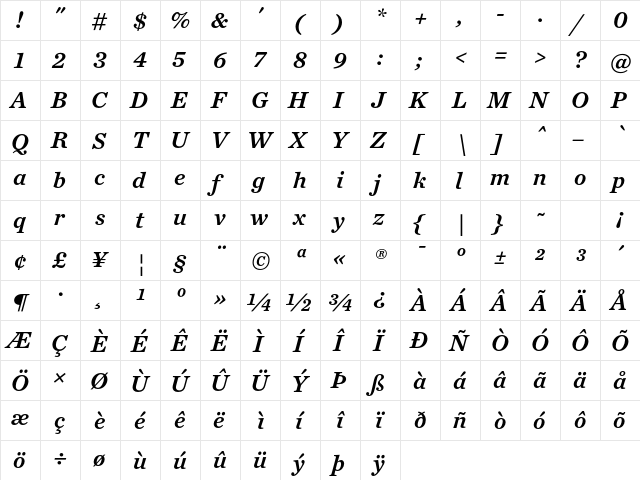
Chronicle Text G3 Semibold Italic
| Foundry | Hoefler & Frere-Jones |
| Designer | Hoefler & Frere-Jones |
Design Context for Chronicle Text G3 Typeface
Chronicle Text G3 offers clean, dependable letterforms without strong stylistic allegiance, making it a practical choice for designers who need flexibility. Its italic angle brings a sense of urgency and motion to the letterforms. The heavy weight commands attention and anchors typographic hierarchies.
Pro Tip: Use Chronicle Text G3 for emphasis, pull quotes, and subheadings where its slanted energy can add rhythm to the layout.